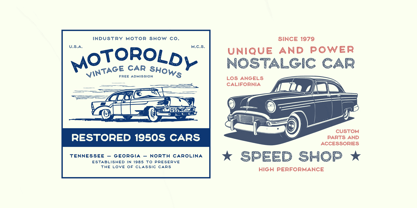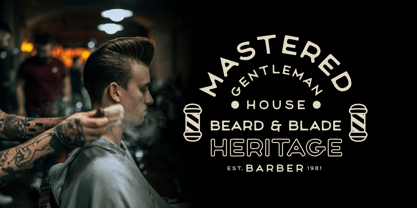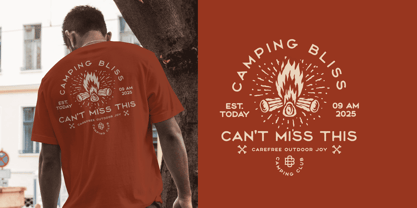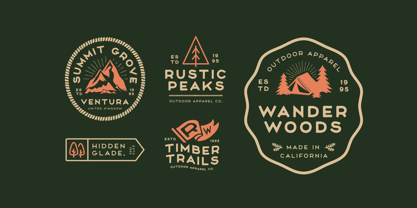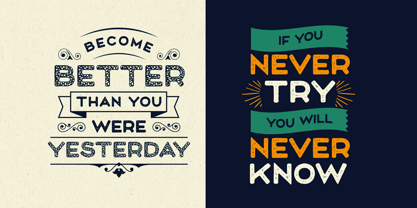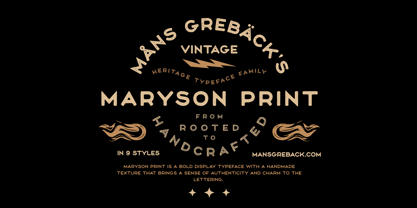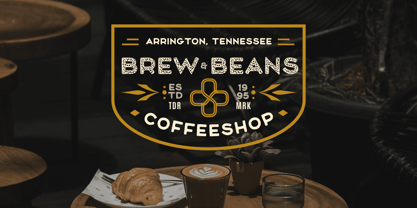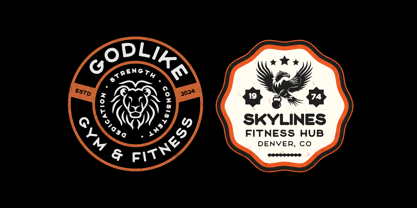
Maryson Print
by Mans Greback
The Maryson Print Font Family was designed by Måns Grebäck and published by Mans Greback. Maryson Print contains 9 styles and family package options. More about this family
Maryson Print is a bold display typeface with a handmade texture that brings a sense of authenticity and charm to the lettering. Designed with a distressed finish, its carved-out imperfections add visual rhythm and character without compromising the clarity of each letterform. With strong proportions and tough edges, the font carries the essence of vintage woodblock printing or old signage worn by time. It evokes a sense of tactile craftsmanship, ideal for expressing warmth, nostalgia or rustic energy. Whether used in branding, poster design, or packaging, Maryson delivers an honest and approachable voice. It is provided in the options Print, Structure, Rough, Outline, in addition to various weights, totaling in nine diverse styles. The font is built with advanced functionality and guaranteed top-notch quality, containing stylistic and contextual alternates, ligatures and more automatic and manual features; all to give you full control and customizability. It has extensive lingual support, covering all Latin-based languages, from North Europa to South Africa, from America to South-East Asia. It contains all characters and symbols you'll ever need, including all punctuation and numbers. Designed by Mans Greback.
Måns Grebäck is a type designer and font creator specializing in script typography, but with a portfolio containing a vast selection of styles. Typefaces from Måns Grebäck are used as company and product logotypes, as well as headlines and in advertisement by a wide range of industries world-wide. Founded by Måns Grebäck in 2010, Mans Greback AB originally went under the name of Mawns Fonts and later Aring Typeface AB. While the foundry has its seat Örebro, Sweden, Måns also lives in Portugal. The Premium Foundry page can be viewed Here.